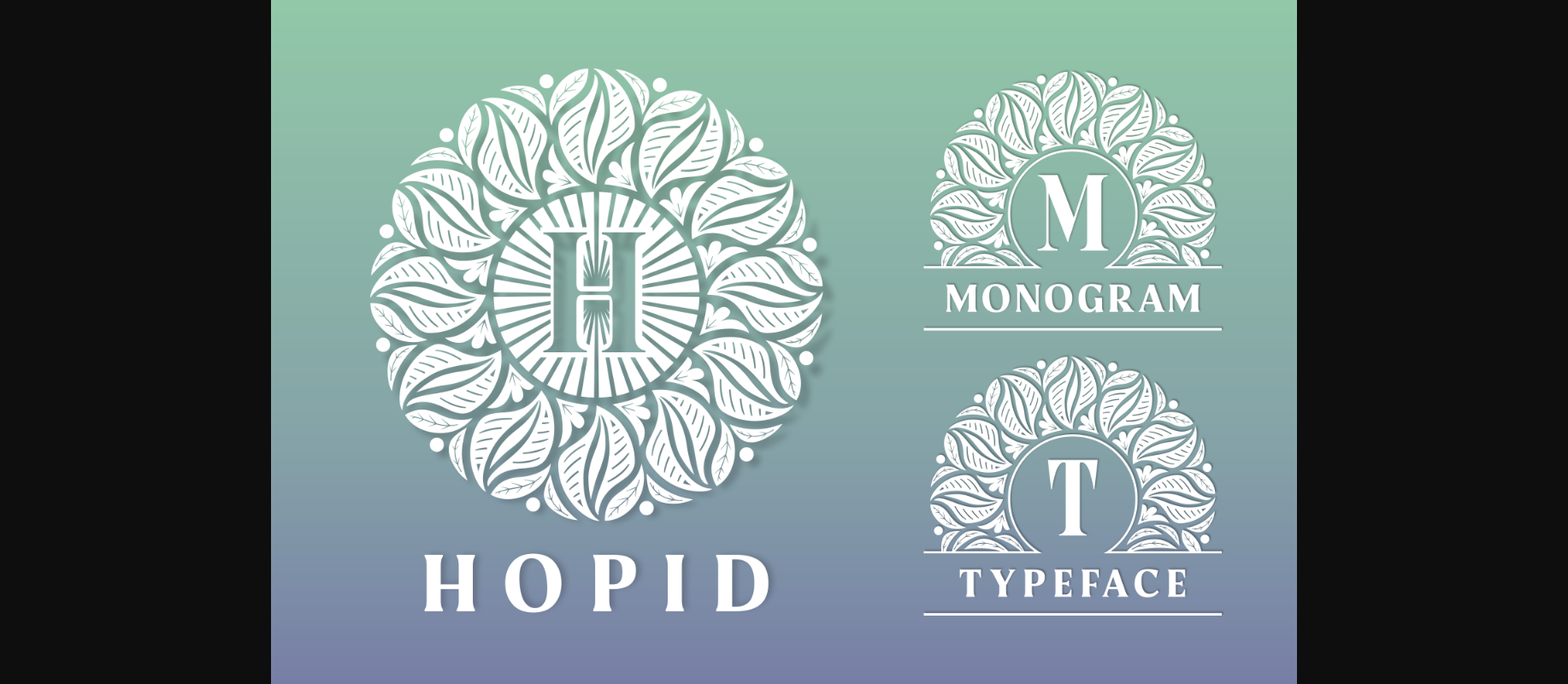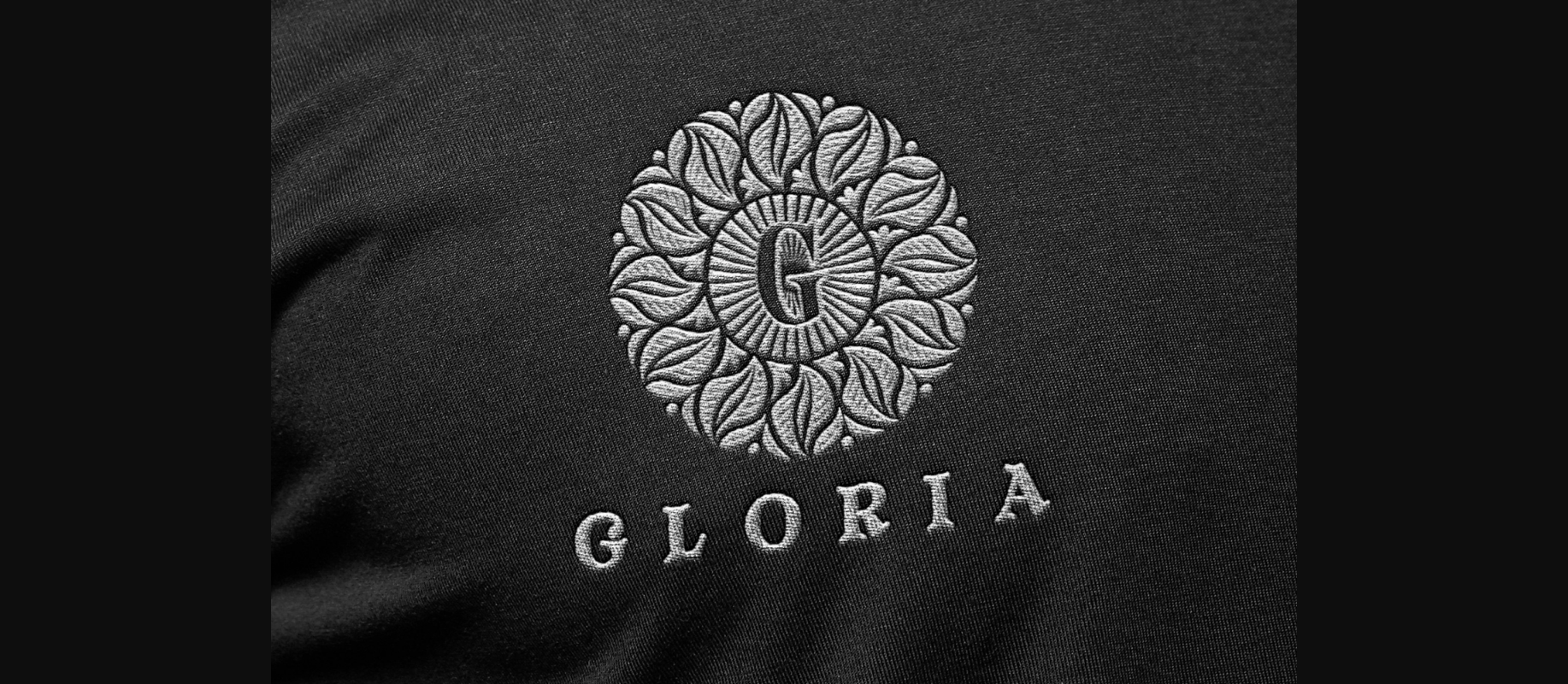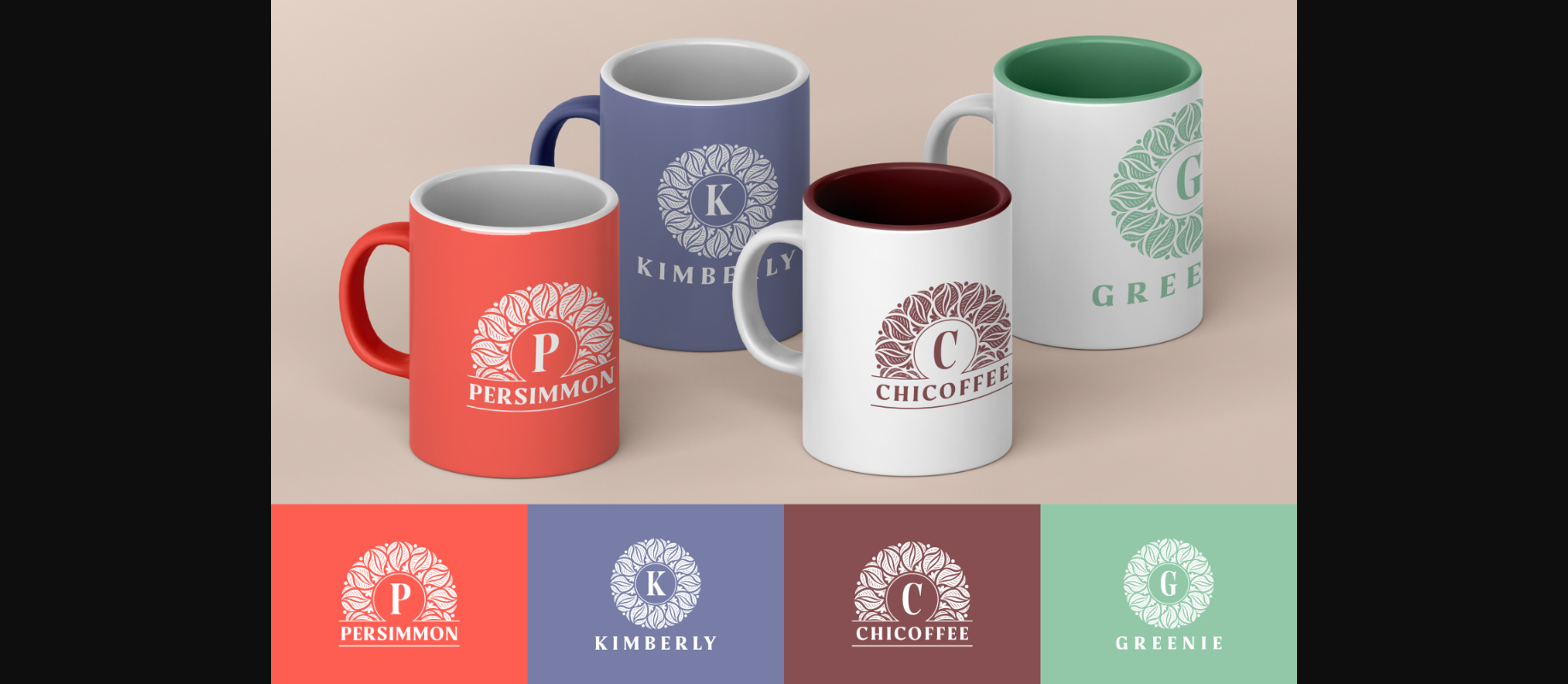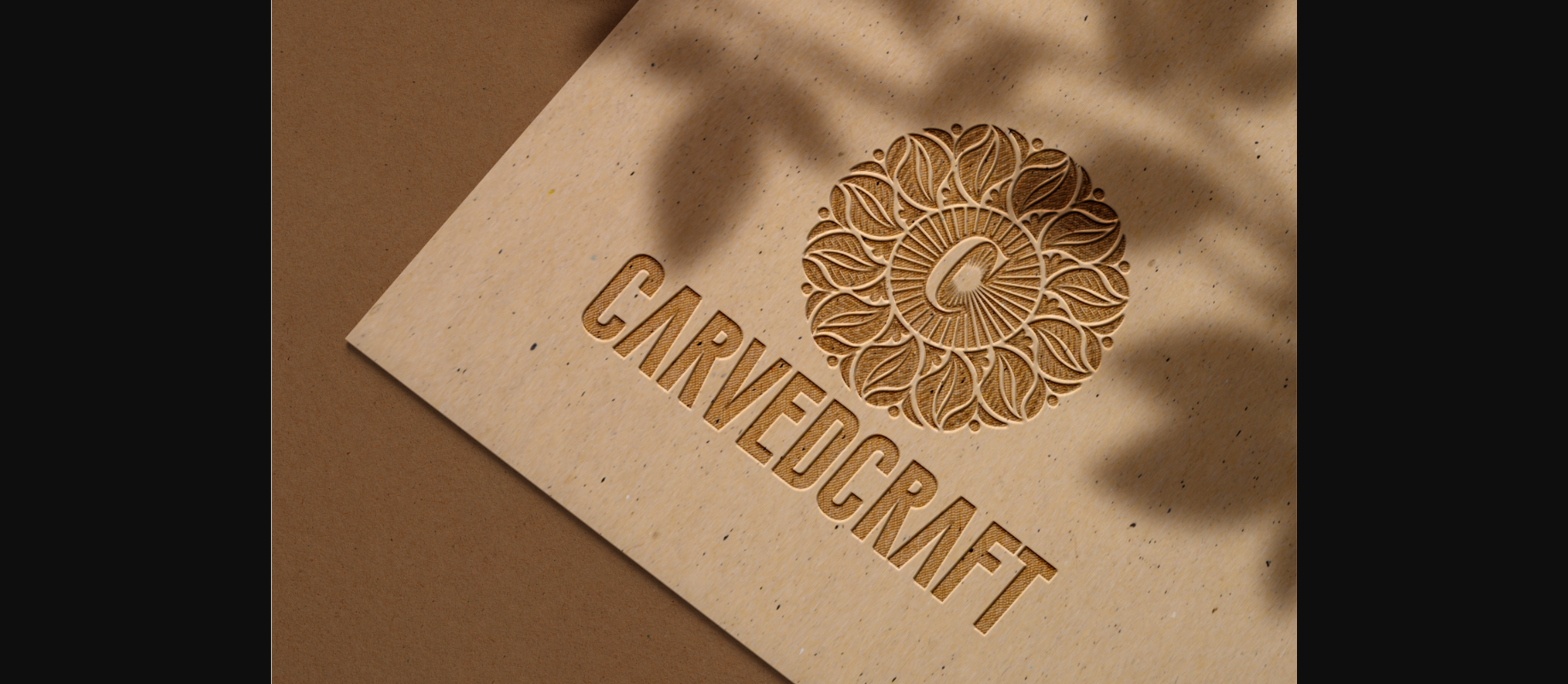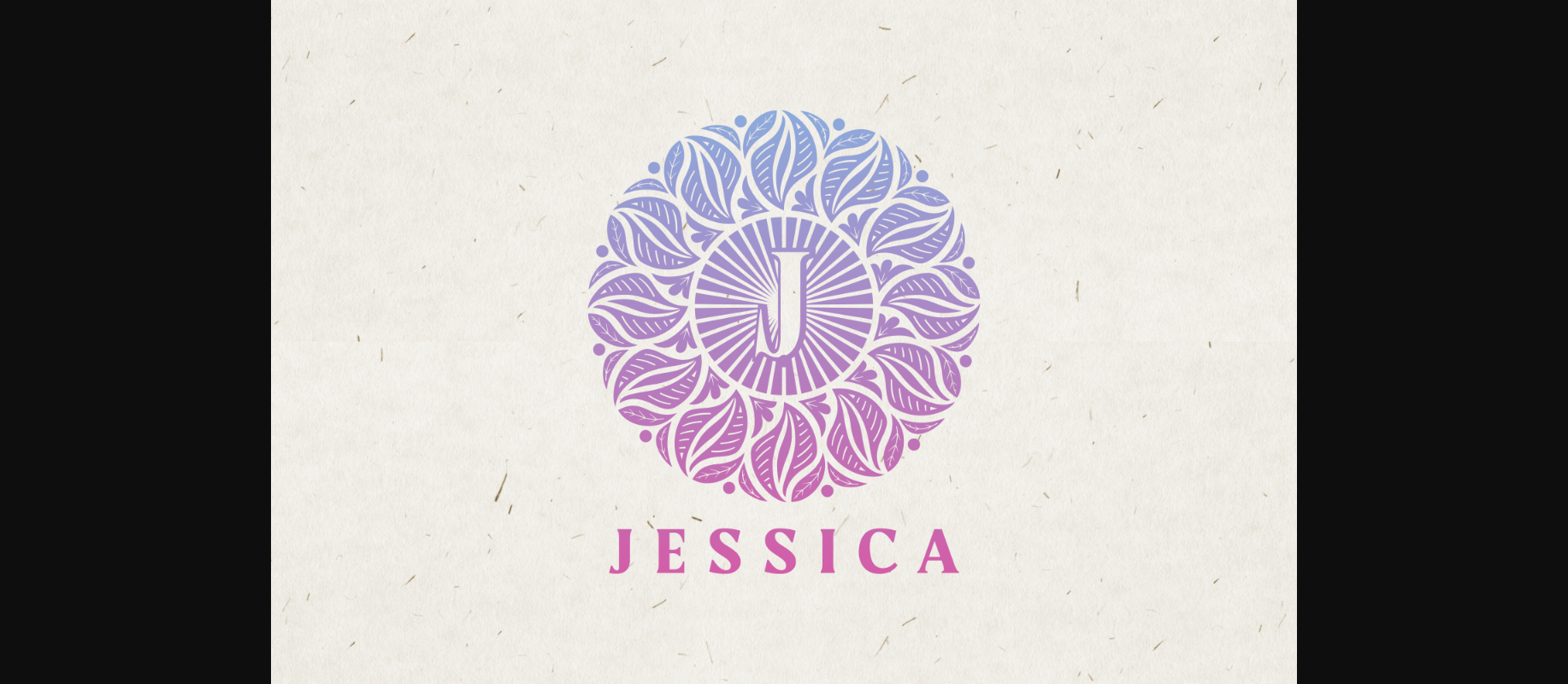
Hopid Font
About Hopid Font
Hopid is a highly detailed and unique decorative font. Add this ravishing looking font to each of your love letters, wedding invitations or favorite design ideas, and you will be astounded by the outcome. Hopid is PUA encoded which means you can access all glyphs and swashes with ease!